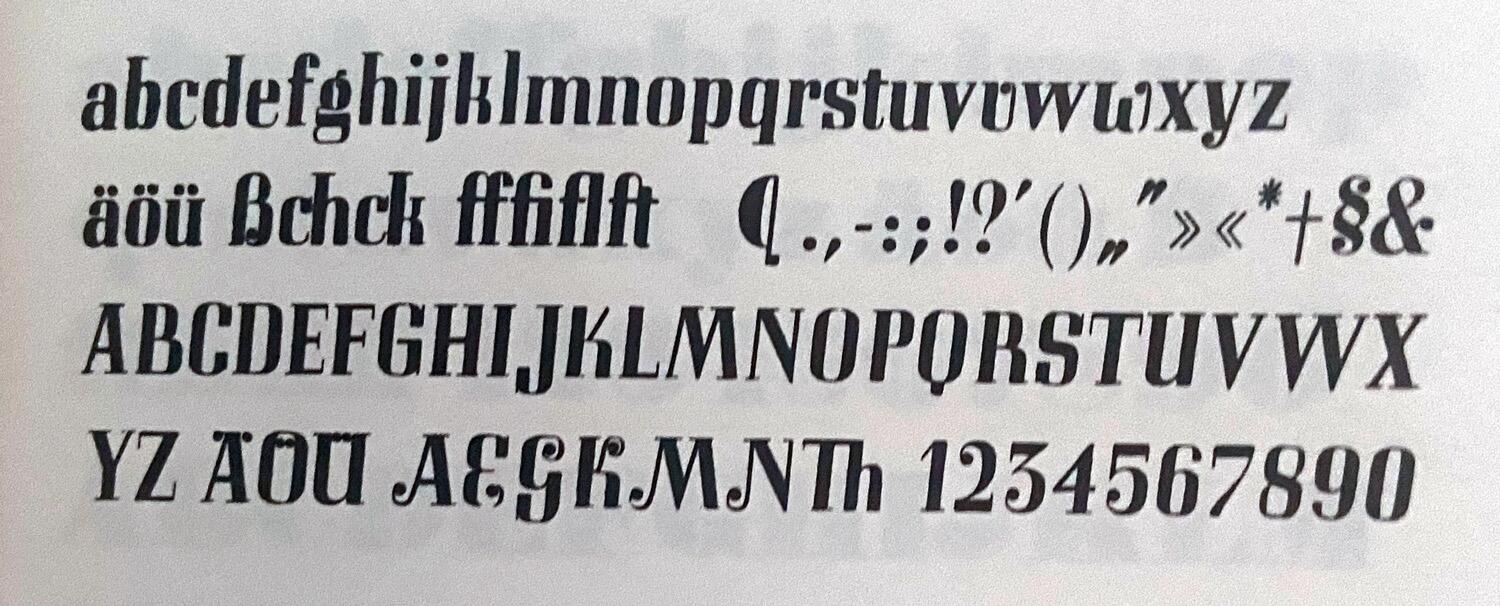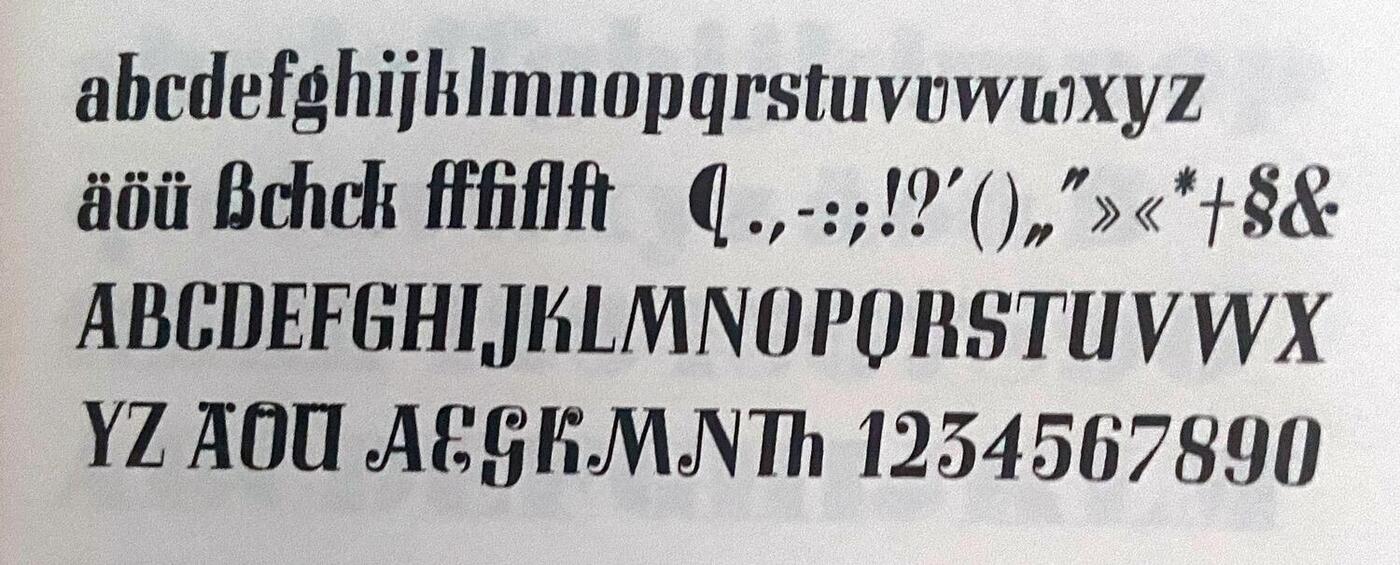
Alts or Swashes in letterpress type
Trying to get a firm ID on this but the alternate letters are confusing me because I cannot find evidence Bauer ever produced alternate letters for Corvinus Bold. Does anyone have a specimen showing them?